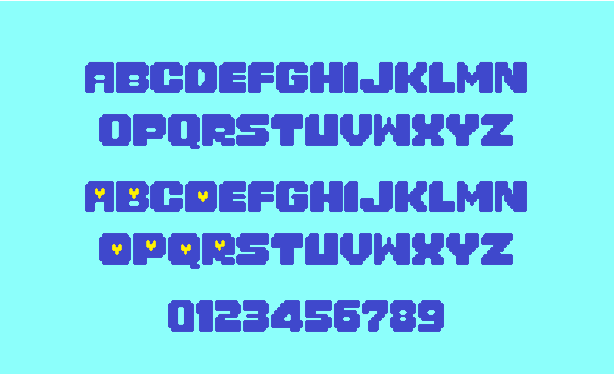
The Undertale Font is a nostalgic and creative typeface closely associated with the iconic indie game, Undertale. Known for its unique pixel-art aesthetic, this font plays a significant role in capturing the game’s retro charm. Beyond its origins in Undertale, the font has become a popular choice in the gaming and design communities for its ability to evoke both nostalgia and creativity.
What is Undertale Font?
The Undertale Font is a pixelated typeface inspired by the retro aesthetics of 8-bit and 16-bit video games. It is prominently featured in Undertale, the beloved role-playing game created by Toby Fox. The font’s design reflects the simplicity and charm of early gaming consoles, making it an integral part of the game’s nostalgic atmosphere.
Undertale uses two primary fonts:
- Determination Sans (Pixelated Font): This font is used in the game’s dialogues and menus, characterized by its pixelated, minimalist design.
- Comic Sans (Undertale-Style Variation): This font is used by the humorous and quirky character Sans, adding personality to the game’s typography.
Thanks to its unique appeal, the Undertale Font has found a life beyond the game, being used in fan art, retro designs, and creative projects.
Features of Undertale Font
The Undertale Font stands out for several distinctive characteristics:
- Pixelated Aesthetic:
- A low-resolution design that captures the essence of retro gaming graphics.
- Perfect for recreating the feel of classic 8-bit games.
- Retro Gaming Influence:
- Inspired by typography from vintage gaming consoles, delivering a nostalgic charm.
- High Contrast and Clarity:
- Despite its pixelated design, it maintains excellent readability for both large and small text.
- Versatile Typography:
- Suitable for a wide range of projects, from gaming-themed designs to minimalist layouts.
- Customizability:
- Often available in styles like bold, mono, and serif variations, offering flexibility for creative projects.
Applications of Undertale Font:
The unique style of the Undertale Font makes it perfect for various uses, including:
- Game Design:
- Ideal for interfaces, dialogues, or titles in retro-style games.
- Fan Art and Projects:
- Widely embraced by fans for comics, posters, and animations inspired by Undertale.
- Merchandise:
- Popular for creating T-shirts, stickers, and other game-related products.
- Digital Content:
- Great for YouTube thumbnails, gaming blogs, or pixel-art-themed designs.
- Event Invitations:
- Adds a nostalgic touch to gaming-related or casual event invites.
Conclusion: Undertale Font
The Undertale Font is a timeless tribute to retro gaming typography, blending pixelated aesthetics with modern usability. Born from the indie game Undertale, it has gained cultural significance and remains a favorite among designers and gamers alike. Whether you’re designing a retro-inspired project, creating fan art, or adding a nostalgic touch to your work, the Undertale Font opens up endless possibilities.